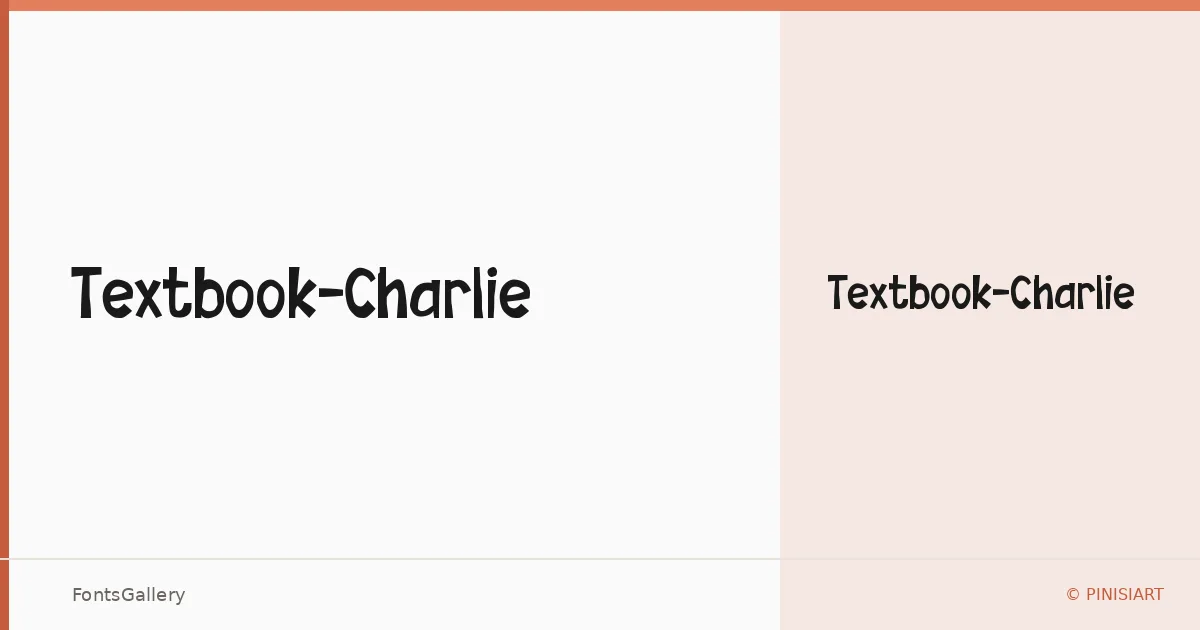
About Textbook-Charlie Font
There's a looseness to this handwritten face that reads like a child's careful printing — deliberate enough to stay legible, irregular enough to feel alive. It comes from the PINISIART TEAM, released under the PINISIART name, and the single Regular cut captures that classroom-notebook quality in a TTF file that installs cleanly.
Sitting in the handwritten category, the design leans playful and whimsical with a rustic edge that keeps it from feeling too polished or corporate. Because there is only the one Regular weight, the personality has to live entirely in the letterforms themselves — and it does, in the slightly uneven baseline and the informal stroke rhythm that gives text a warm, hand-drawn presence. Latin coverage is partial, so character set depth is worth checking against your copy before committing to a layout.
It earns its keep on children's book spreads, greeting cards, posters, and social media graphics where that hand-lettered quality signals warmth rather than precision. For contrast and readability across body text or supporting elements, it pairs well with clean sans-serifs like Helvetica, Aileron, or Aresink, and sits comfortably alongside the character of Aranea or Bizantheum when a more illustrative palette is needed.